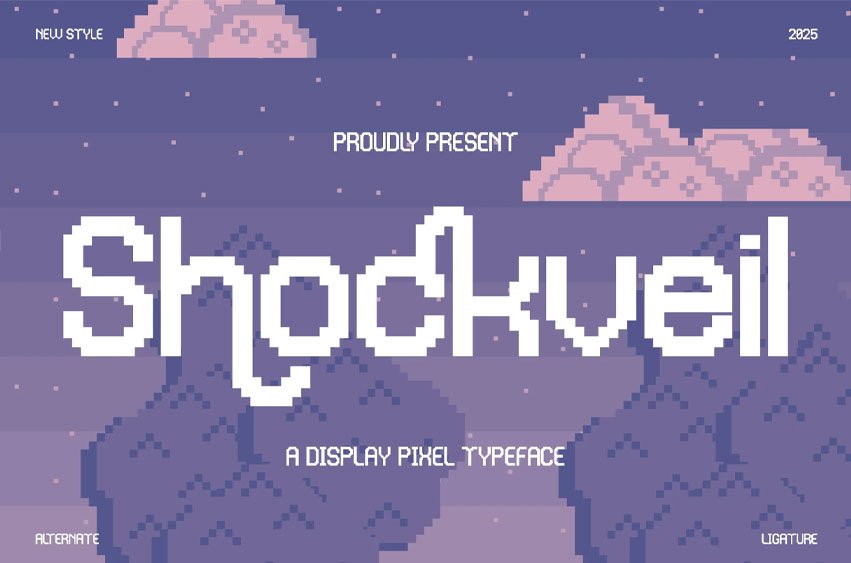
Shockveil Font is a display pixel font that packs a punch. Featuring sharp, geometric forms and a distinctive 8-bit aesthetic, it’s ideal for projects needing a retro-futuristic, high-tech, or glitchy vibe.
- Alternates & Ligatures
Elevate game titles, music posters, and modern branding with Shockveil’s unique digital charm.